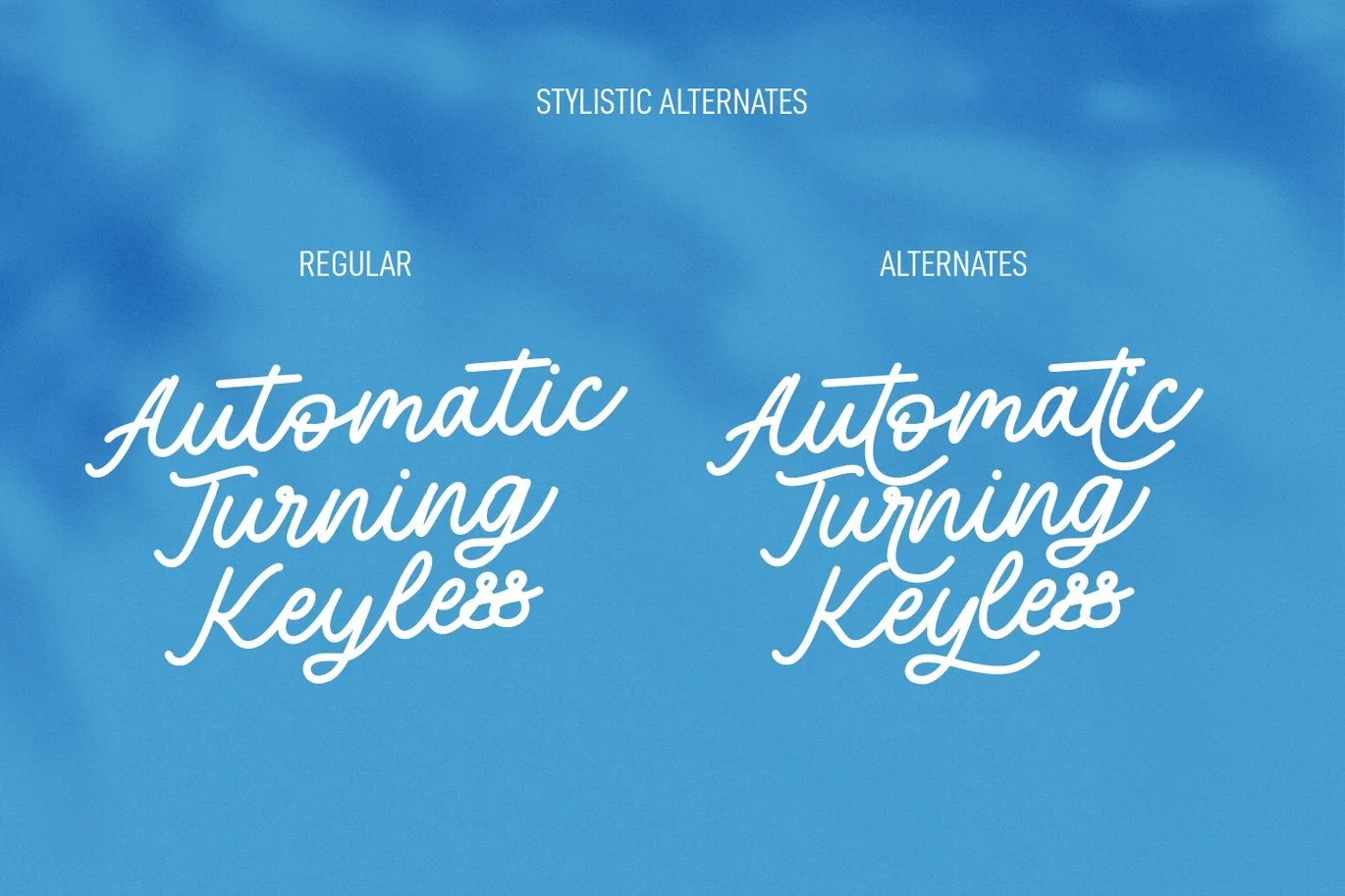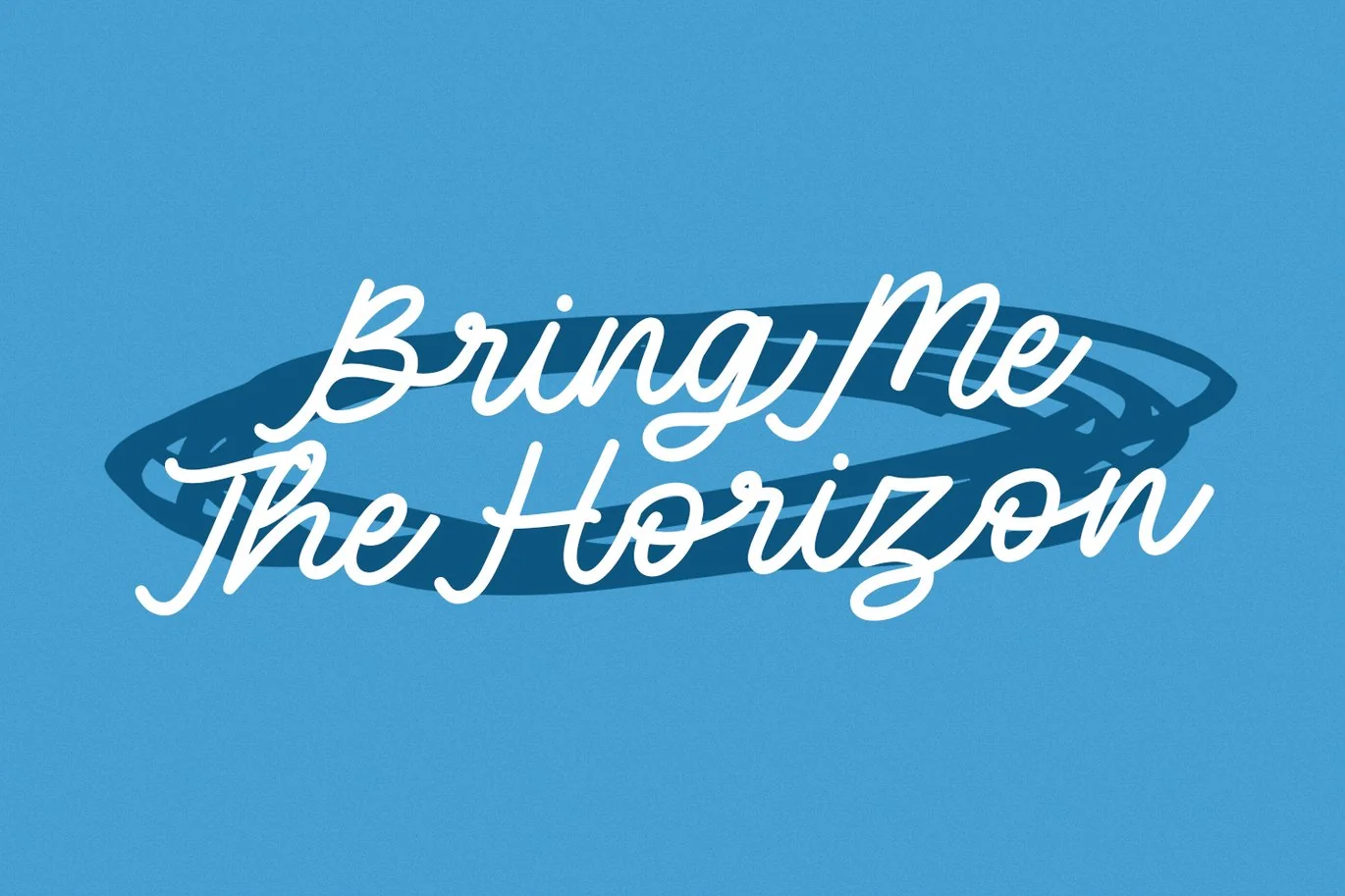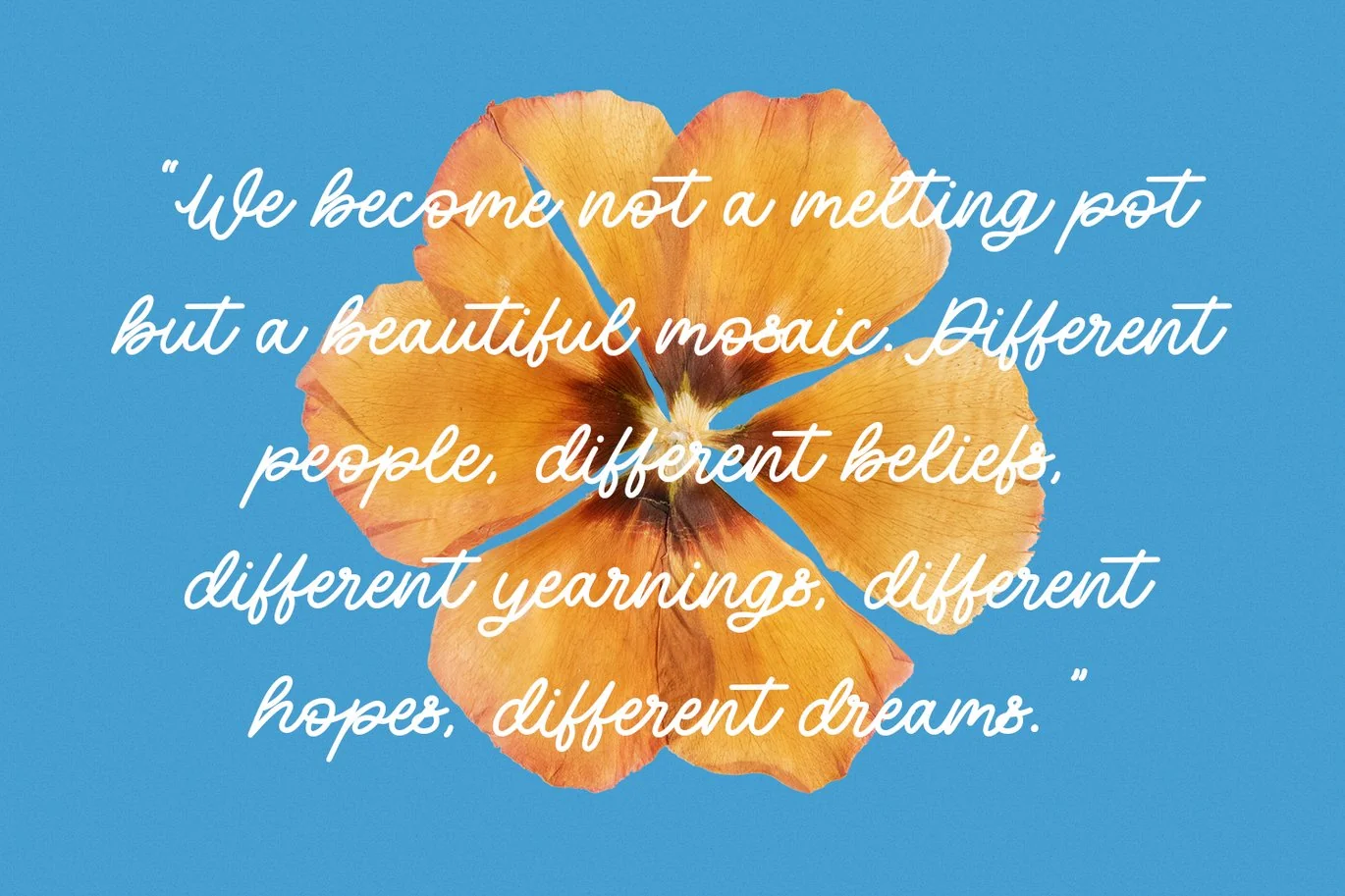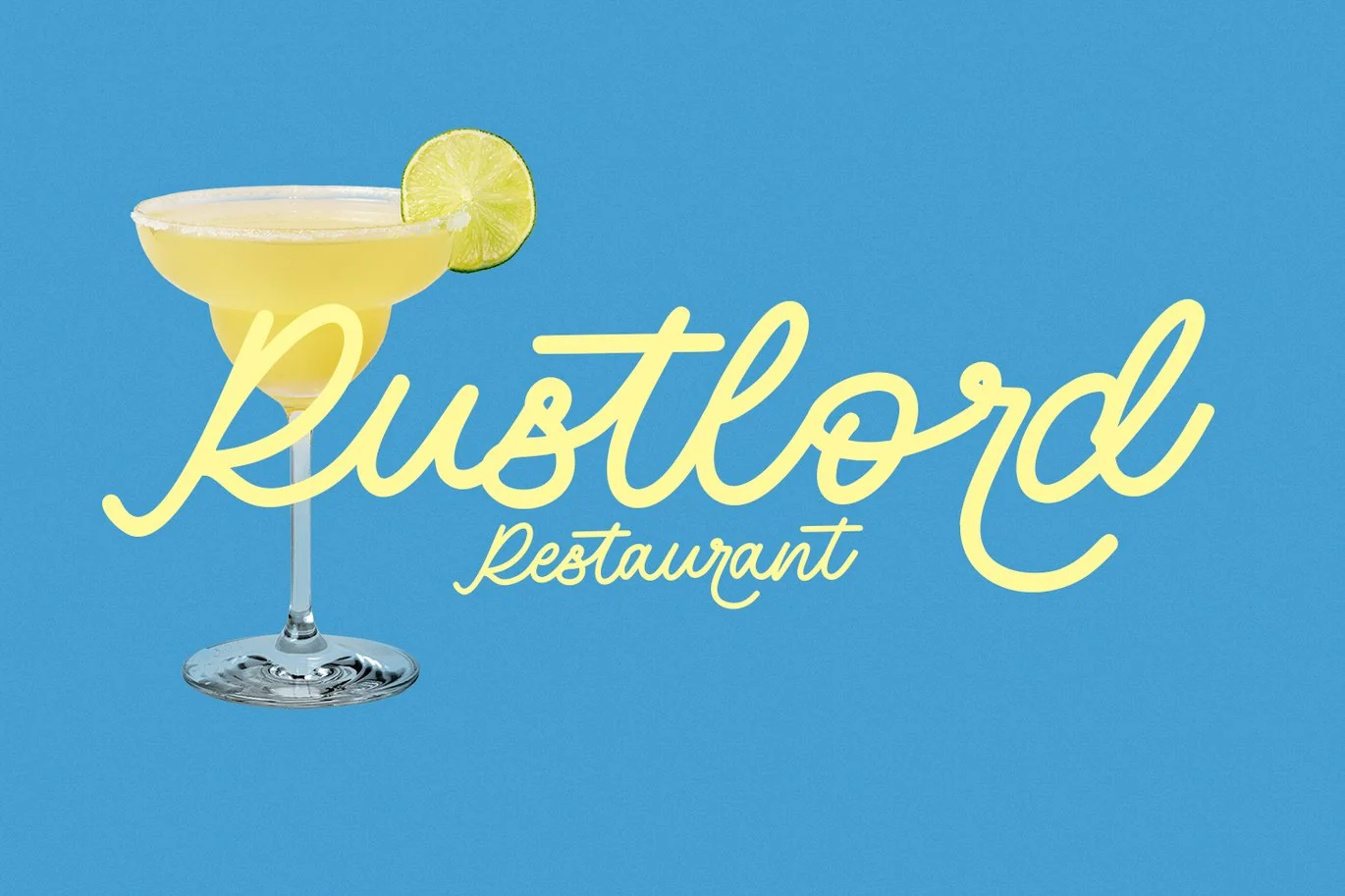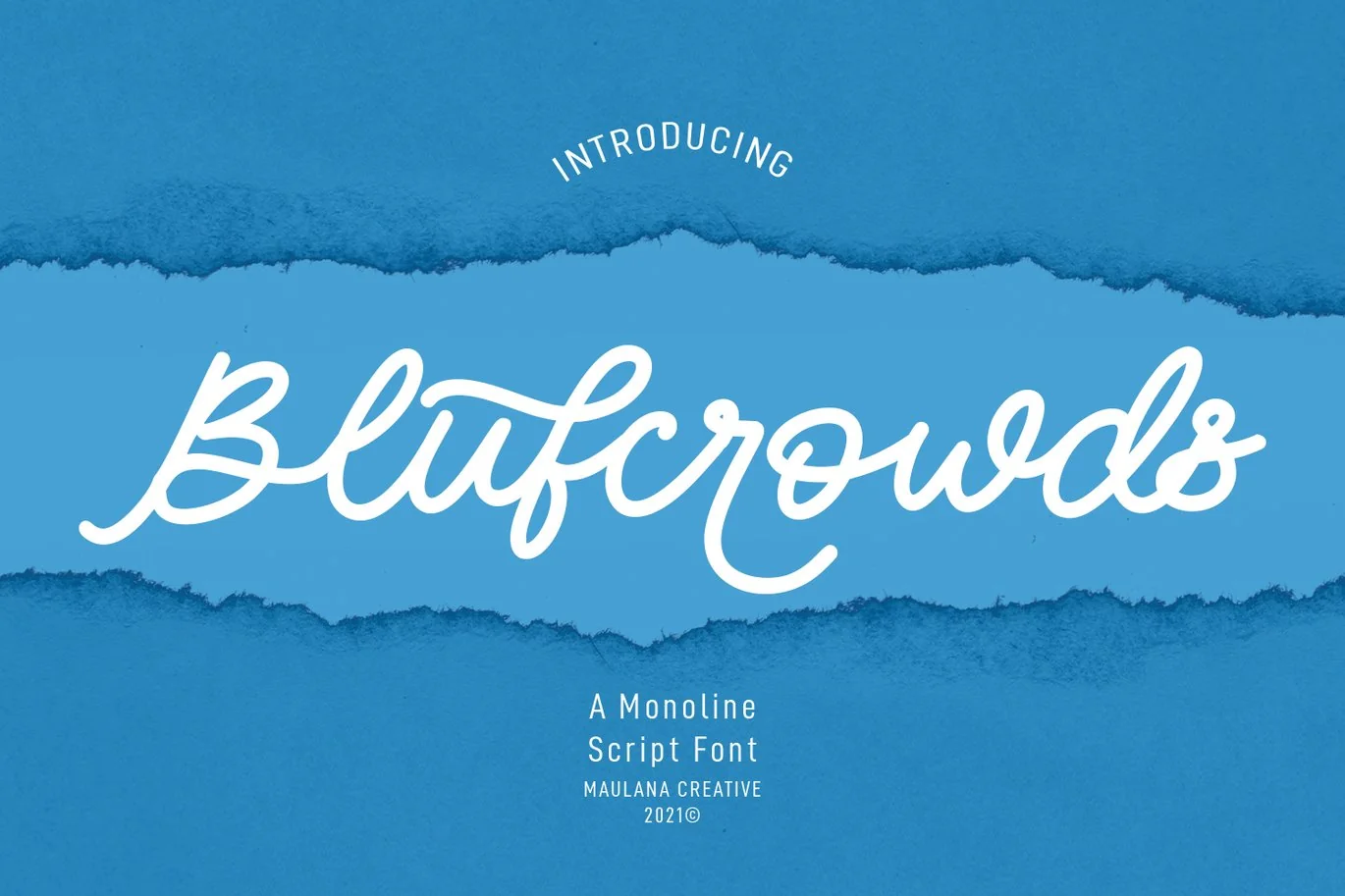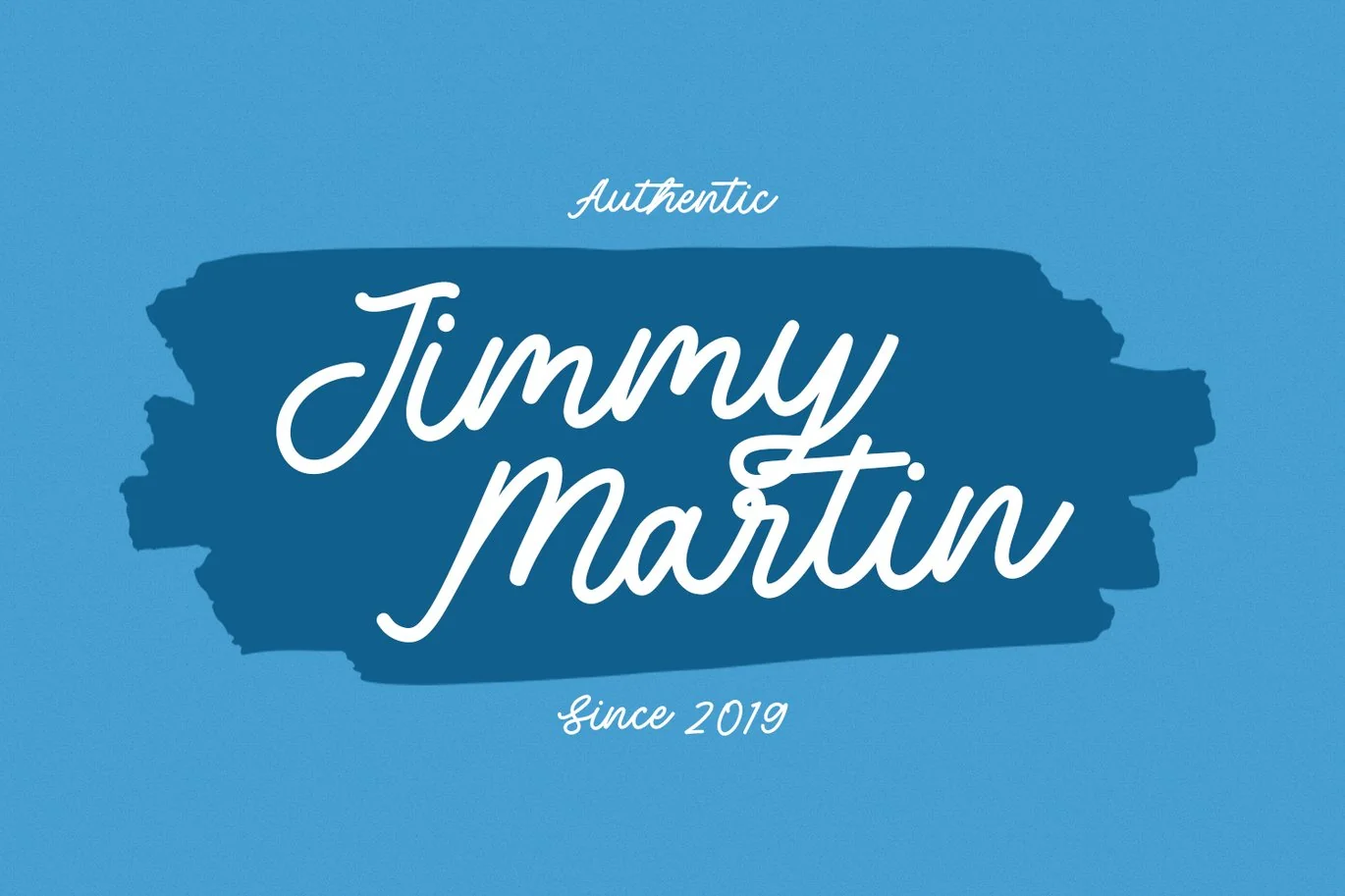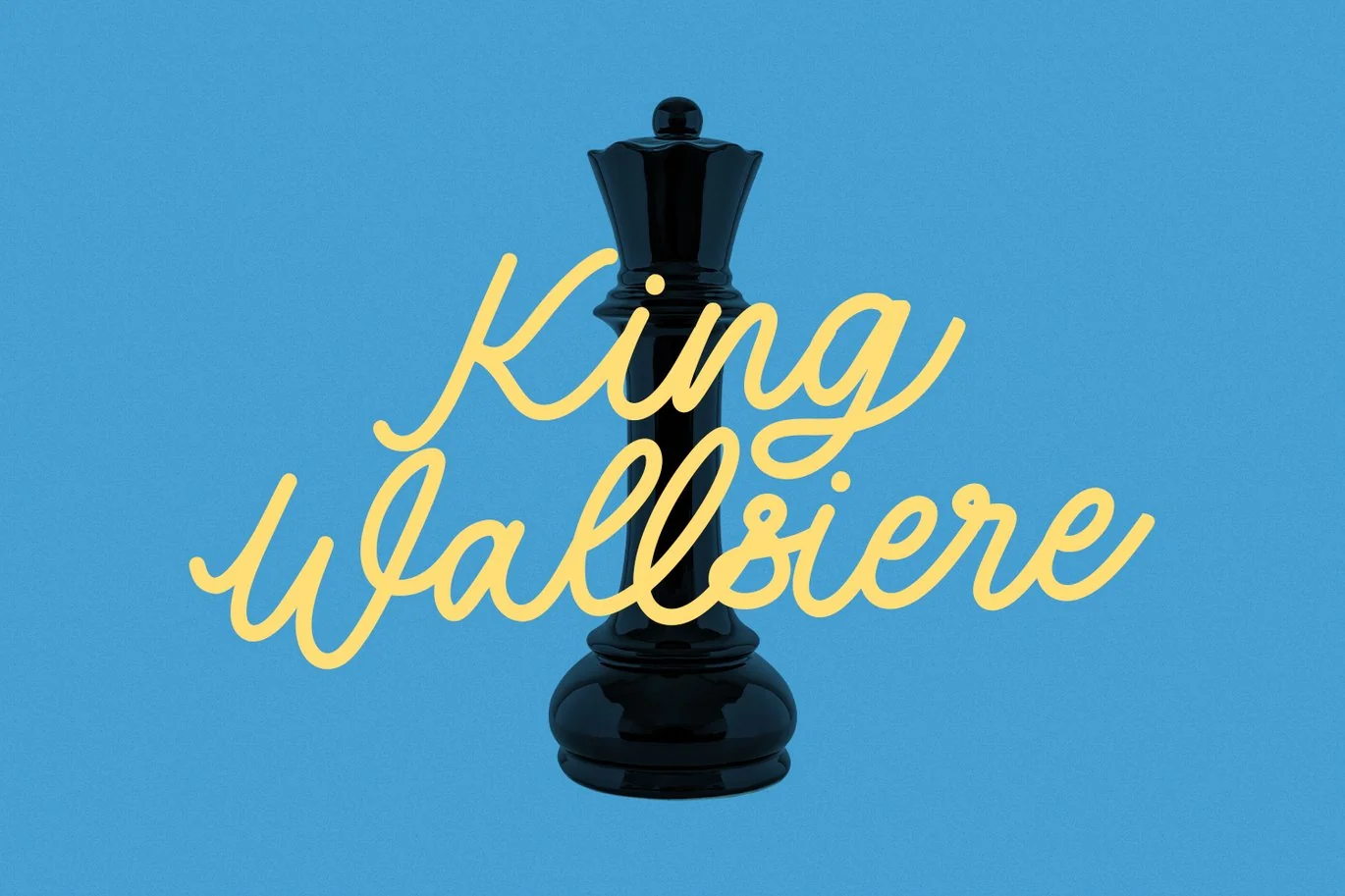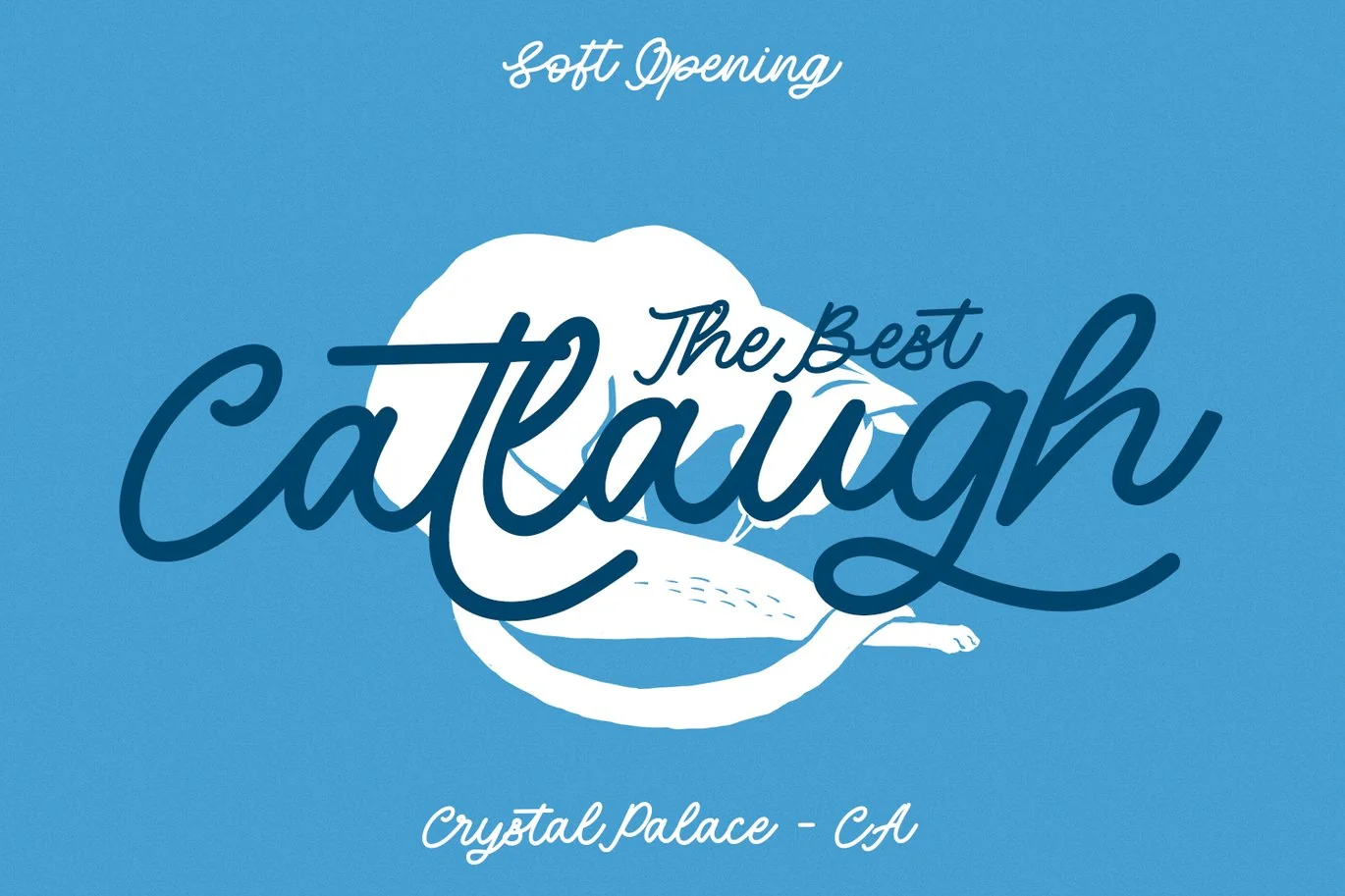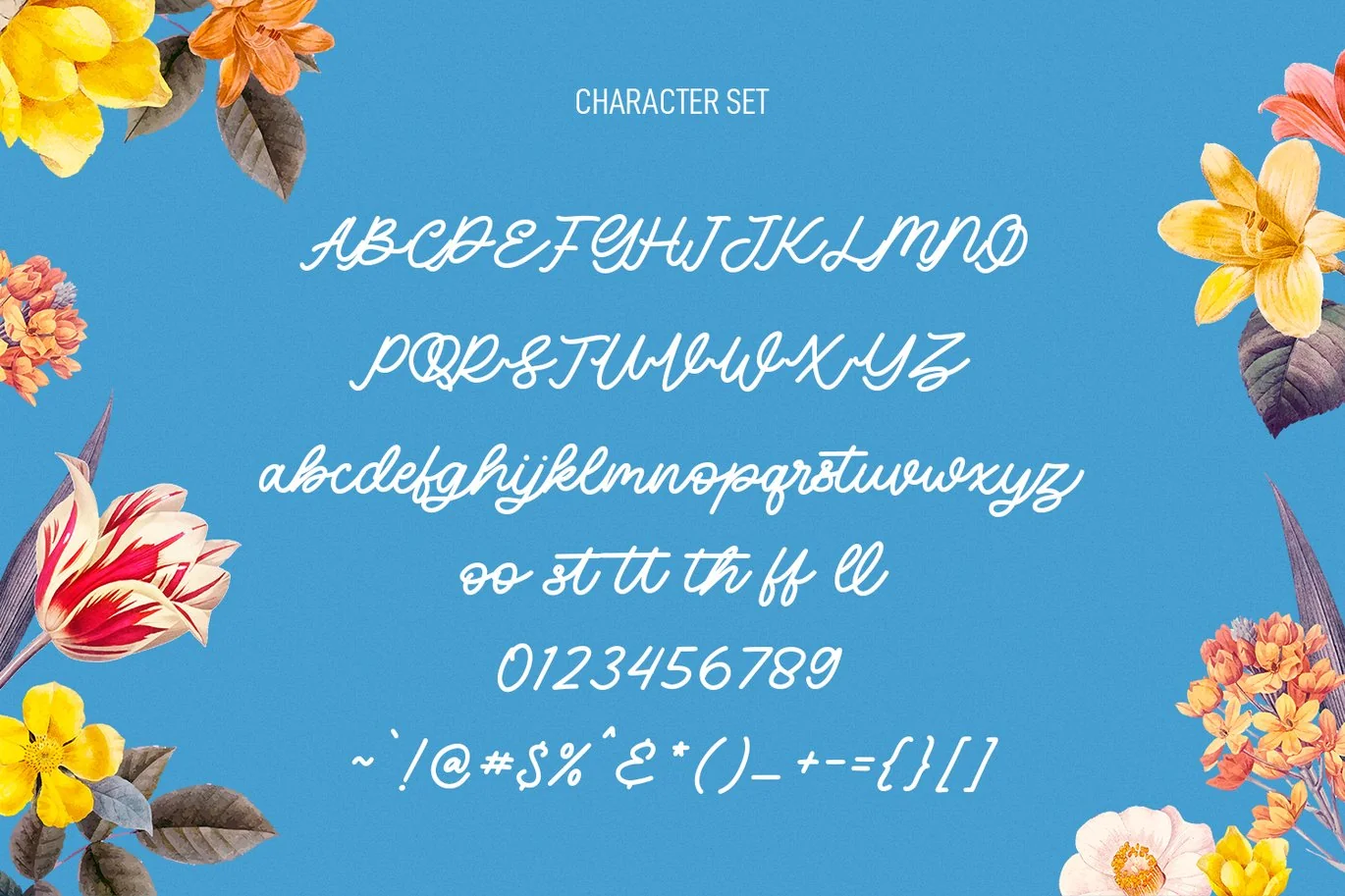
Blufcrowds Classic Script Font
Blufcrowds is a classic style of script font. With regular mono-line stroke, slanted and fun character with a bit of ligatures and lowercase alternatives. To give you an extra creative work. Blufcrowds font support multilingual more than 100+ language. This font is good for logo design, Social media, Movie Titles, Books Titles, a short text even a long text letter and good for your secondary text font with sans or serif. Make a stunning work with Blufcrowds font.